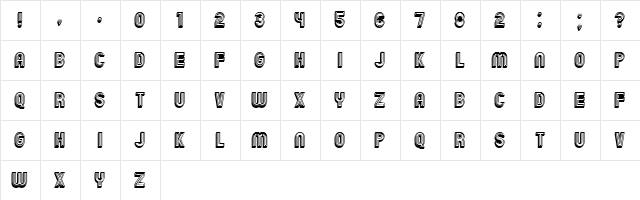
Chicago Bright Neon 3D Regular
Design Context for Chicago Bright Neon 3D Typeface
Chicago Bright Neon 3D channels digital-age aesthetics through its sharp, structured letterforms — ideal for brands that want to signal innovation.
Pro Tip: Use Chicago Bright Neon 3D in combination with a neutral sans for body text. Let it define the brand voice in headlines while keeping reading comfortable elsewhere.